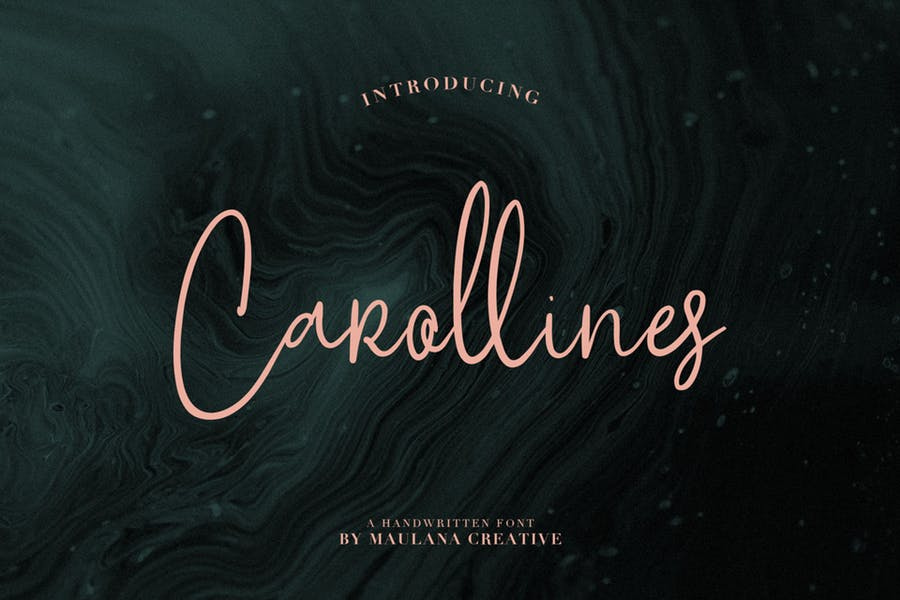
Carollines Script Font
Carollines Script Font is perfect for elegant wedding invitations, romantic branding projects, luxury boutique identities, heartfelt greeting cards, sophisticated packaging design, intimate restaurant menus, personal stationery applications, and graceful advertising campaigns. This enchanting typeface works beautifully in both digital applications and print media where romantic elegance and feminine sophistication are essential design elements.
What makes Carollines Script Font so exciting is its exquisite interpretation of flowing calligraphy through graceful letterforms that seem written by hand with tender care and romantic devotion. The font features elegant characters with romantic proportions, flowing curves, and delicate flourishes that create an immediate atmosphere of love and sophisticated femininity. Its romantic personality and calligraphic heritage make it ideal for brands seeking to establish emotional connections with their audience while communicating elegance, romance, and the timeless appeal of handwritten beauty to discerning customers who appreciate refined aesthetics.
The Carollines Script Font family includes multiple stylistic variations with different romantic intensities, along with flowing alternates and decorative ornamental elements. Each style maintains the typeface's elegant character while offering comprehensive character sets including graceful numerals, romantic punctuation marks, and special symbols designed to enhance intimate communications and feminine branding efforts across various romantic contexts.
This remarkable typeface represents the perfect marriage of calligraphic tradition and contemporary romantic design for wedding and lifestyle industries. Whether you're developing bridal service identities, creating luxury fashion materials, or designing romantic event promotions, Carollines Script Font Free Download provides the elegant sophistication and versatility needed to captivate romantic audiences. The font's feminine appeal makes it particularly effective for wedding planners, luxury beauty brands, romantic venues, and businesses celebrating love, elegance, and the enduring beauty of feminine grace.
The carefully crafted calligraphic details and optimized romantic performance in Carollines Script Font ensure both authentic elegance and clear communication across all romantic applications. Its graceful presence makes it perfect for romantic branding, feminine marketing materials, and intimate communications where its full calligraphic character can create lasting emotional connections with audiences seeking beauty, romance, and the sophisticated charm of handwritten elegance.